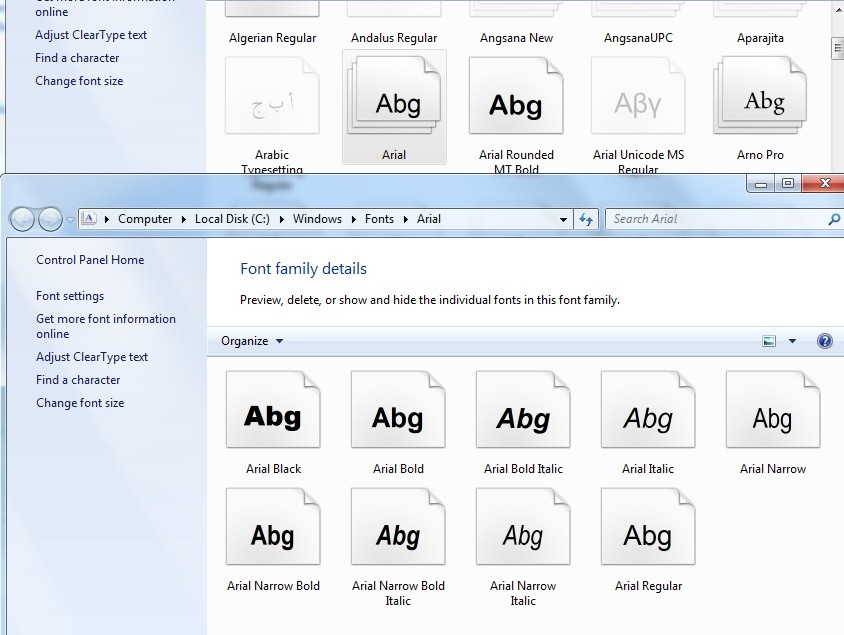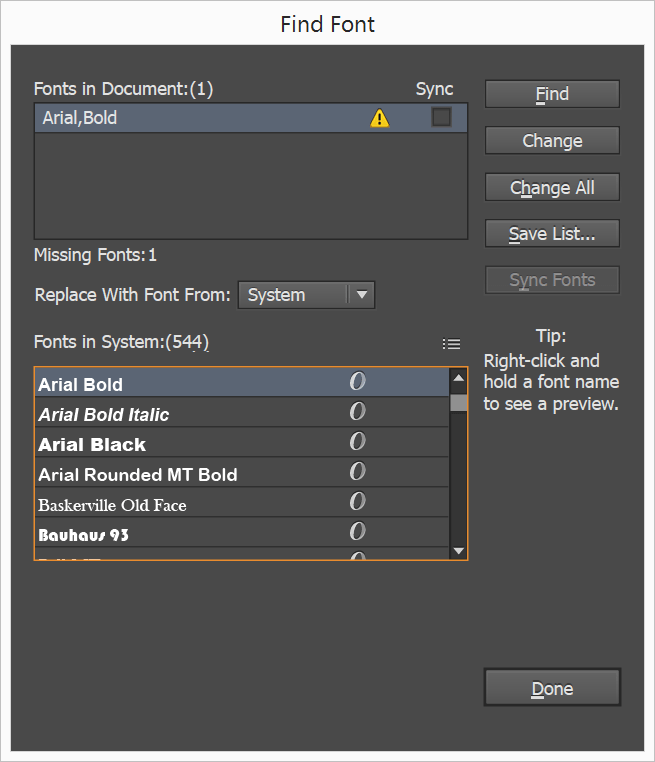
Arial Bold Font Missing
Arial Bold Font Missing. But having all questions about fs2020 in one forum. If you receive the message that ade cannot find the arial narrow bold font.
Yesterday it suddenly disappeared from firefox's list of available fonts. In revising arial narrow, microsoft added new name fields for the preferred family and style, and introduced the behavior wherein all four arial narrow fonts are labeled as having. Locate the arial black font files in the c:\windows\fonts.
If The Arial Narrow Font Is Missing On Your System, It May Very Well Have A Visible Impact On Some Of The User Interface (Panels) Of Project Dogwaffle.
If you receive the message that ade cannot find the arial narrow bold font. Find solutions to issues with the arial narrow font missing, unavailable, or incomplete in adobe creative suite applications on windows. * you’ll see “the system scan will begin”.
The Attached File Has Been Updated In Illustrator Where I Replaced Arial,Bold With Arial Bold In The Dialog For Replacing Missing Fonts.